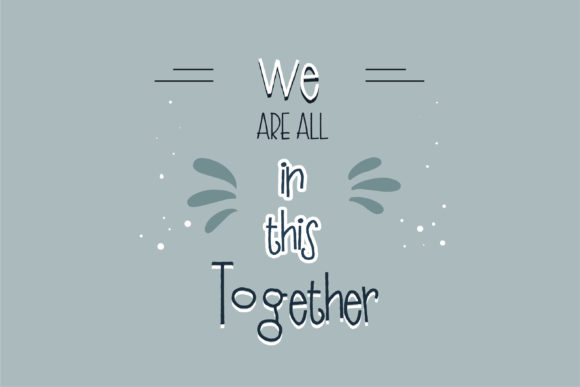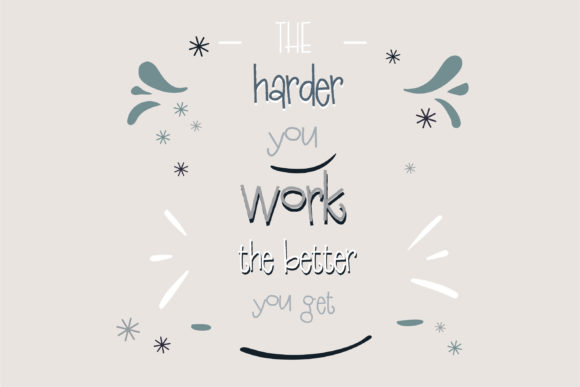
Red-Nosed Font
db-ku.com - Script & Handwritten -- Red-Nosed it has beautiful and well balanced characters and as a result, it matches a wide pool of designs. Add it to your most creative ideas and notice how it makes them come alive!